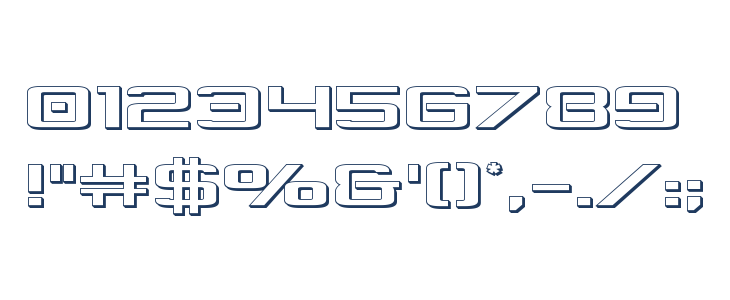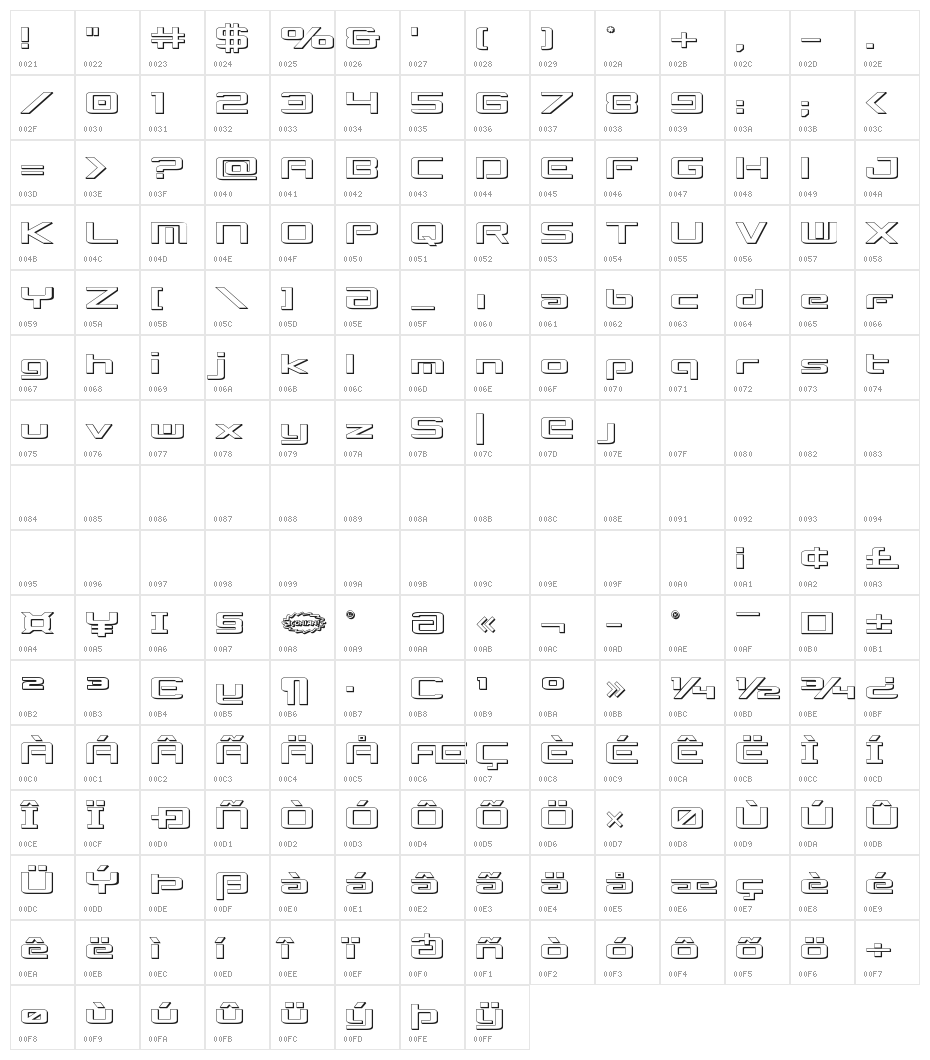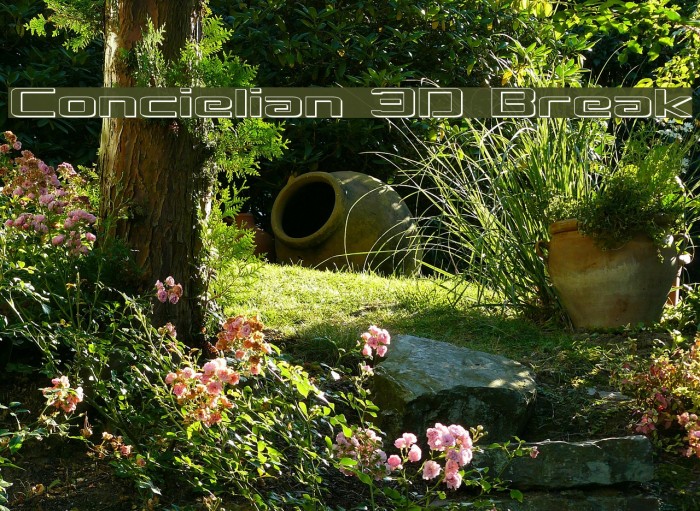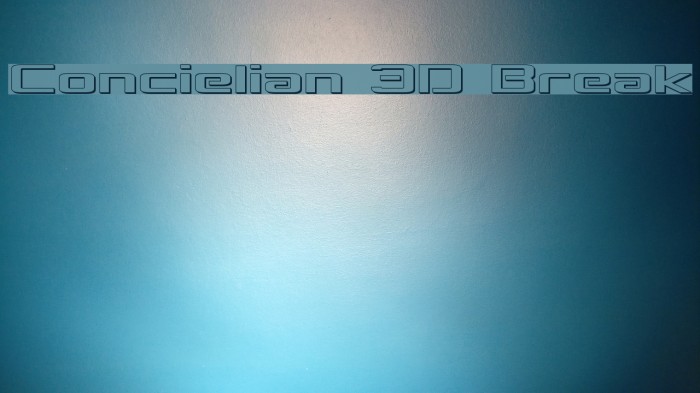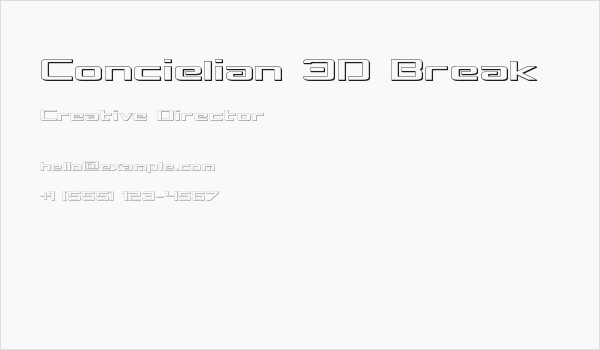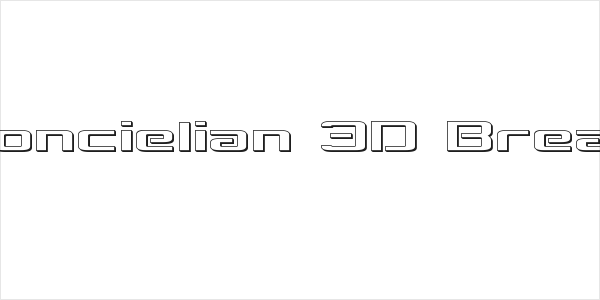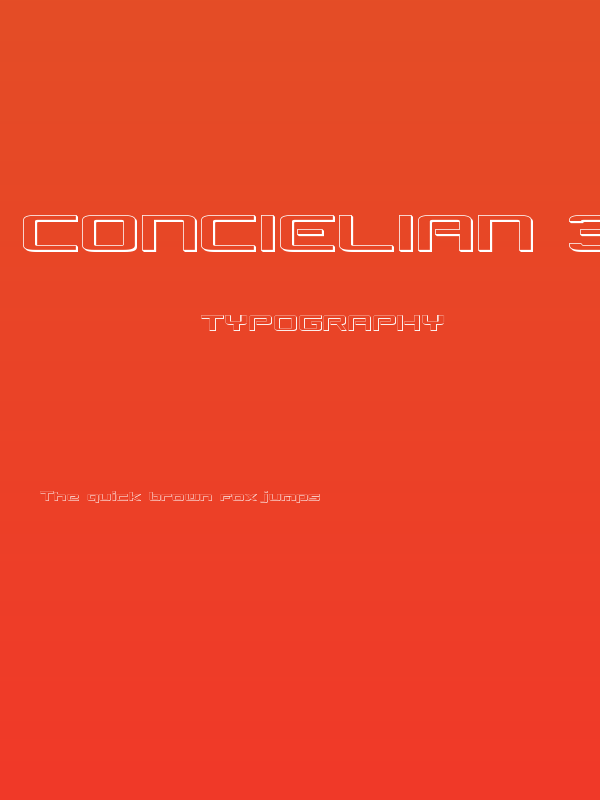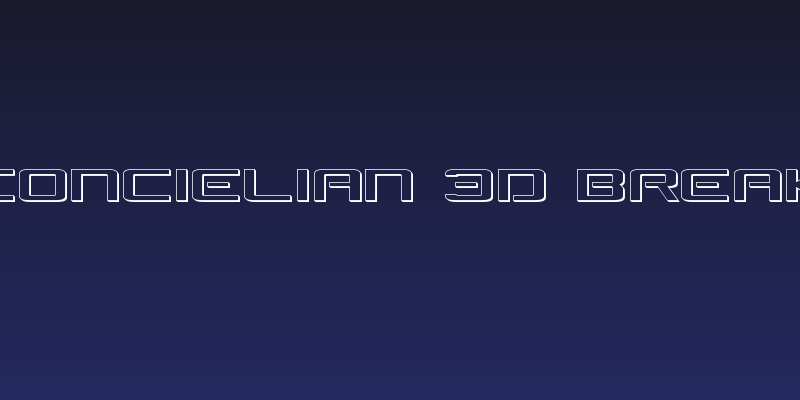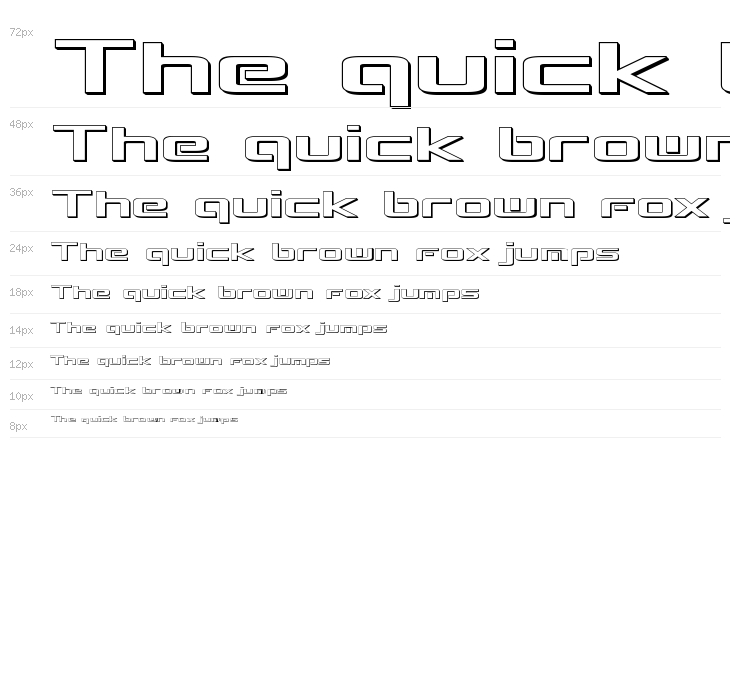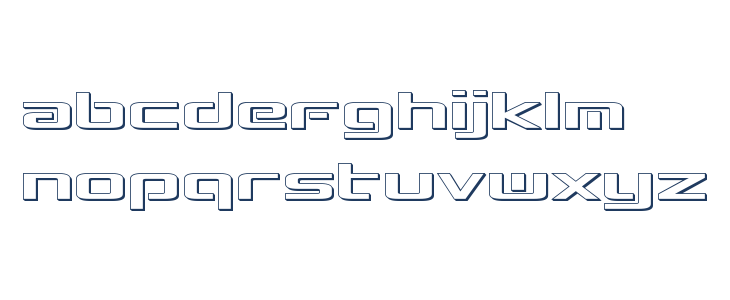
Concielian 3D Break Font
Concielian 3D Break Description
This font features a unique 3D outline style that gives each character a sense of depth and dimension. The geometric shapes are clean and precise, with a futuristic and modern aesthetic. The uppercase and lowercase letters maintain a consistent design, with sharp angles and straight lines that create a cohesive look. Numbers and special characters are designed to match the overall style, ensuring uniformity across all text. The font's open structure and clear lines make it highly legible, even at smaller sizes, while the 3D effect adds a dynamic and eye-catching element.
| Proposed Projects | Ideal for tech-related branding, futuristic posters, video game graphics, and sci-fi themed projects. |